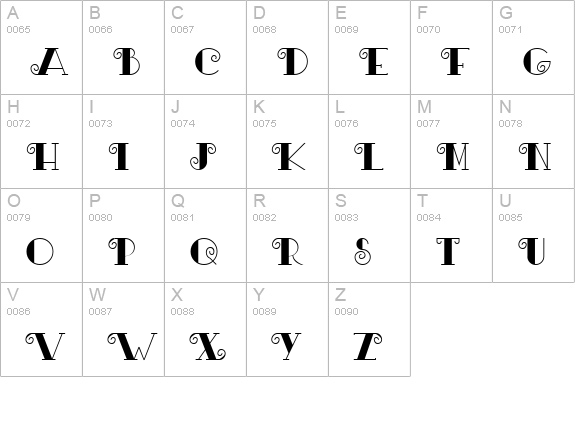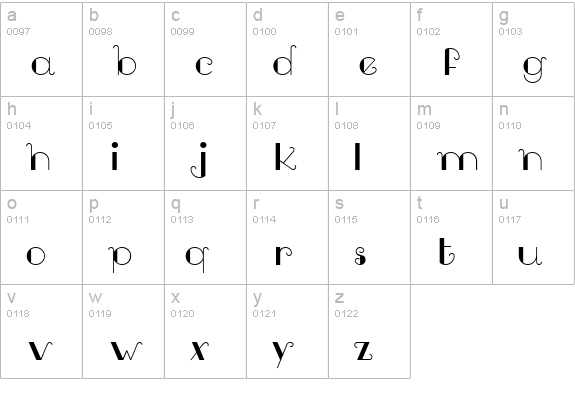
Tortillon Tryout Font Details
Introducing Tortillon Tryout, a stunningly elegant and versatile font that is perfect for adding a touch of sophistication to any design project. With its delicate curves and graceful letterforms, Tortillon Tryout exudes a sense of beauty and refinement. This font is the epitome of versatility, making it ideal for a wide range of applications. Whether you're designing a logo, creating a wedding invitation, or crafting a brand identity, Tortillon Tryout will elevate your work to new heights. What makes Tortillon Tryout even more appealing is that it is absolutely free. Yes, you read that right! This exceptional font is freely available to download at FontsMarket.com. Say goodbye to expensive fonts and hello to high-quality design resources without breaking the bank. With its extensive character set, including uppercase and lowercase letters, numerals, punctuation marks, and special characters, Tortillon Tryout ensures that you have everything you need to bring your creative visions to life. Its smooth and seamless lines flow effortlessly, creating a harmonious and visually pleasing composition. The attention to detail in Tortillon Tryout is remarkable. Every curve and stroke has been meticulously crafted to perfection, resulting in a typeface that exudes professionalism and elegance. Whether used in bold headlines or subtle body text, this font commands attention and leaves a lasting impression. Tortillon Tryout is a true testament to the beauty of typography. Its timeless design transcends current trends, making it a reliable choice for any project, no matter the style or industry. It effortlessly blends classic and contemporary elements, ensuring its versatility for years to come. So why wait? Enhance your designs with the captivating charm of Tortillon Tryout. Download this exceptional font today, completely free of charge, at FontsMarket.com. Unleash your creativity and elevate your designs with this exquisite typeface that is sure to leave a lasting impression on your audience.